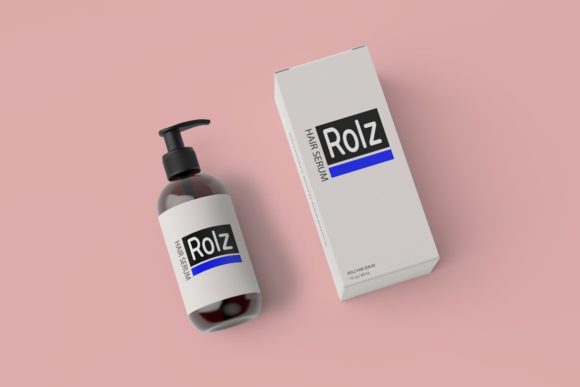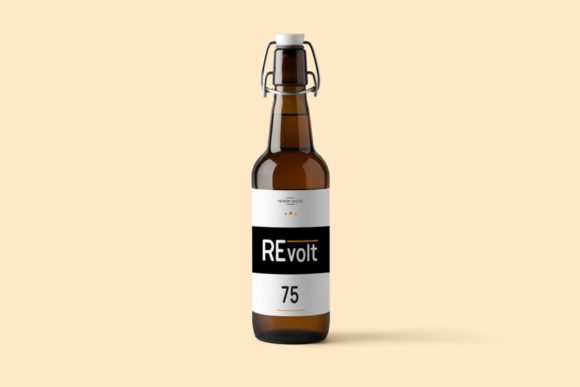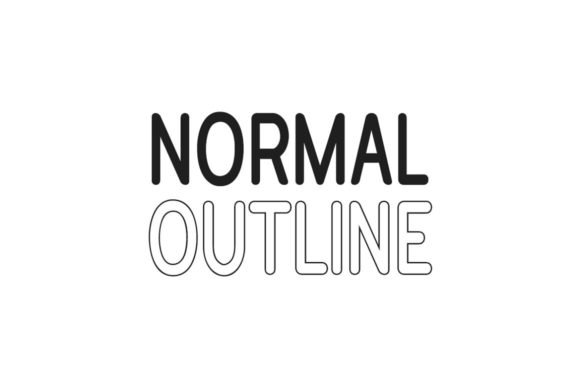
Casper Font: Elevate Your Designs with a Clean and Modern Display Font
In the world of typography, fonts play a crucial role in making or breaking a design. A well-chosen font can instantly elevate your project, making it look sleek, sophisticated, and professional. If you’re on the hunt for a font that embodies these qualities, look no further than Casper Font. This clean and modern display font is perfect for adding a smart, cool touch to your web designs, logos, and more.
What is Casper Font?
Casper Font is a minimalist and techno-styled font designed to make a statement. Its clean lines, simple shapes, and modern aesthetic make it an ideal choice for designers and crafters looking to add a touch of sophistication to their work. Whether you’re creating a logo, website, or print material, Casper Font is sure to impress.
Key Features of Casper Font
- Clean and Modern Design: Casper Font boasts a sleek and contemporary design that’s perfect for modern designs and projects.
- Minimalist Aesthetic: With its simple shapes and clean lines, Casper Font is ideal for designers who appreciate a minimalist approach to typography.
- Techno-Style: This font’s techno-style vibe makes it perfect for projects that require a cutting-edge, futuristic feel.
- High Versatility: Casper Font can be used in a variety of projects, from web designs and logos to print materials and more.
Benefits of Using Casper Font
So, why choose Casper Font for your next project? Here are just a few benefits of using this versatile and stylish font:
- Instant Professionalism: Add a touch of professionalism to your project with Casper Font’s sleek and modern design.
- Improved Readability: This font’s clean lines and simple shapes make it easy to read, even at smaller sizes.
- Enhanced Creativity: With Casper Font, you can add a unique and creative touch to your project, setting it apart from the rest.
How to Use Casper Font in Your Designs
Ready to add Casper Font to your design arsenal? Here are a few tips for incorporating this font into your projects:
- Pair with Other Fonts: Combine Casper Font with other fonts to create a unique and visually appealing typography scheme.
- Experiment with Sizes and Colors: Play around with different sizes and colors to find the perfect combination for your project.
- Use in Headings and Titles: Casper Font is perfect for headings and titles, adding a touch of sophistication and style to your design.
- Add to Your Website or Logo: Use Casper Font to create a professional and modern look for your website or logo.
In conclusion, Casper Font is a versatile and stylish display font that’s perfect for designers and crafters looking to add a touch of sophistication to their projects. With its clean and modern design, minimalist aesthetic, and techno-style vibe, this font is sure to elevate your designs and make them stand out. So why wait? Download Casper Font today and start creating stunning, professional-grade designs that impress.
- Is Casper Font easy to read? Yes, Casper Font is designed to be highly readable, even at smaller sizes.